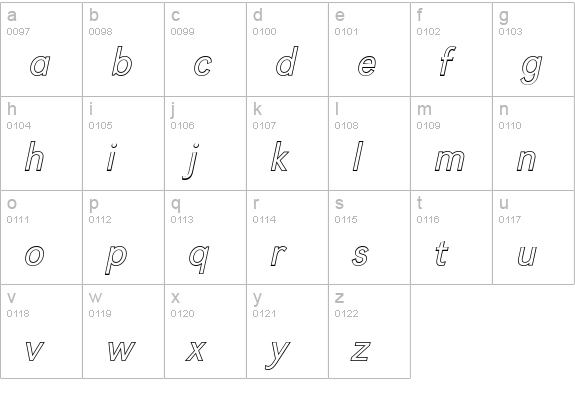
GroteskOu-Light-Italic is a refined, elegant, italic variant in the GroteskOu typeface family \xE2\x80\x94 well suited to elegant body text, refined sub-headings, and luxury branding.
GroteskOu-Light-Italic is a sleek and sophisticated font that exudes elegance and modernity. With its clean lines and subtle slant, this font is perfect for adding a touch of sophistication to any design project. The italicized version of GroteskOu-Light adds a touch of flair and style, making it ideal for headings, titles, and other prominent text elements. What sets GroteskOu-Light-Italic apart is that it is available for free download at FontsMarket.com. This means that you can easily access this stylish font without any cost, making it a valuable addition to your font collection. Whether you're working on a professional design project or simply looking to elevate your personal creations, GroteskOu-Light-Italic is a versatile and beautiful font that will enhance any design. Download it now and add a touch of sophistication to your next project!